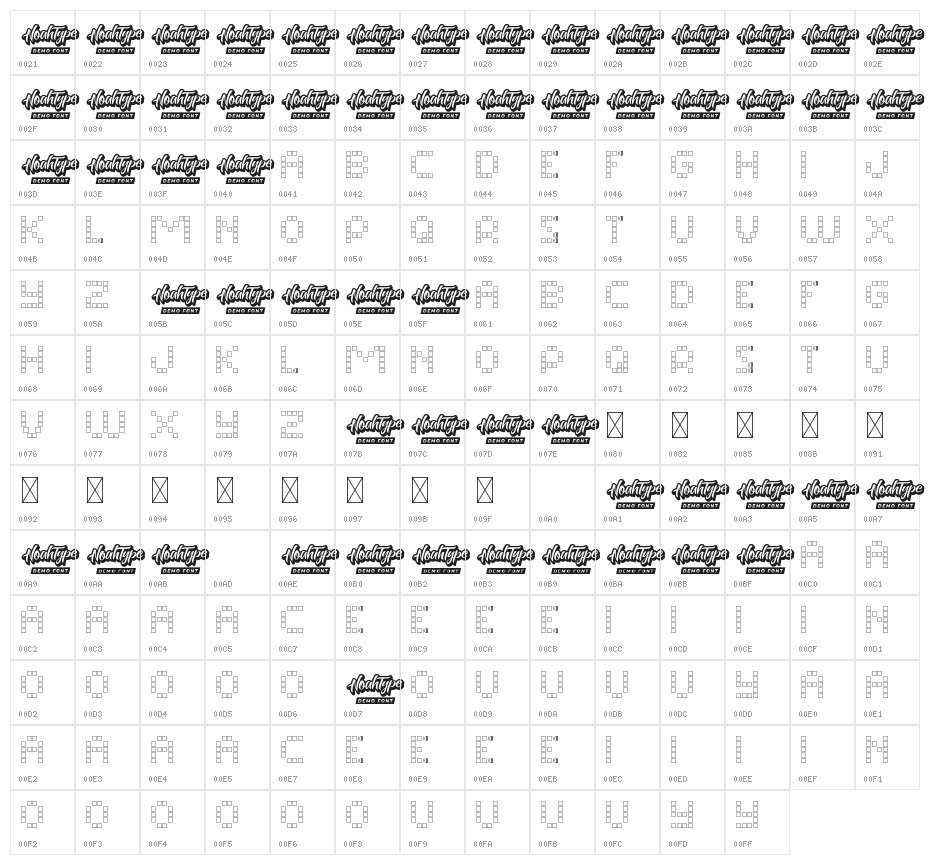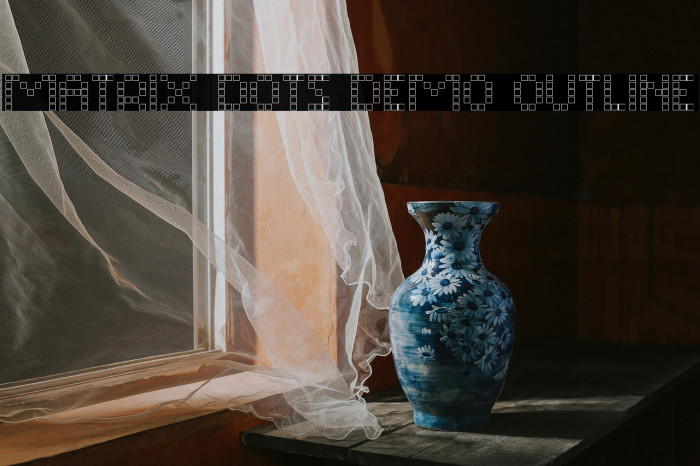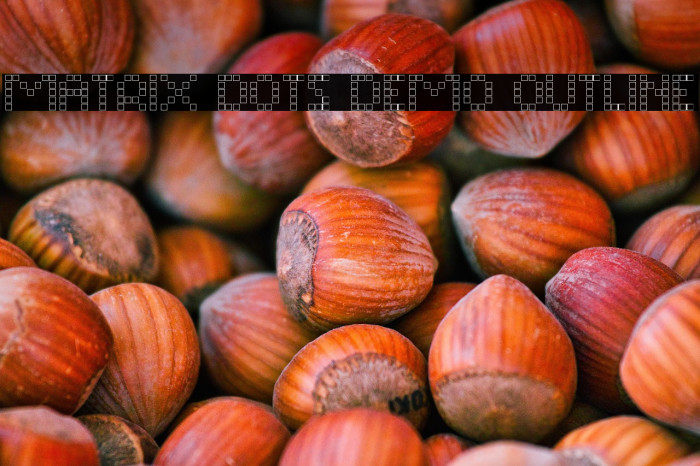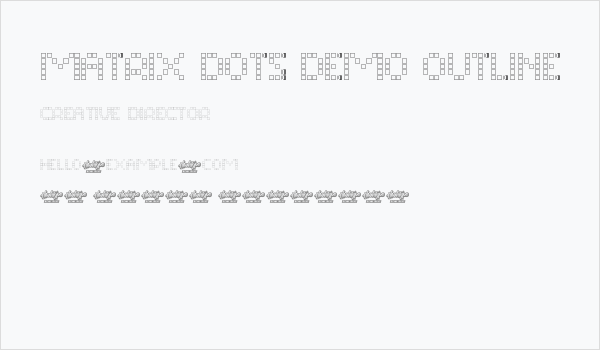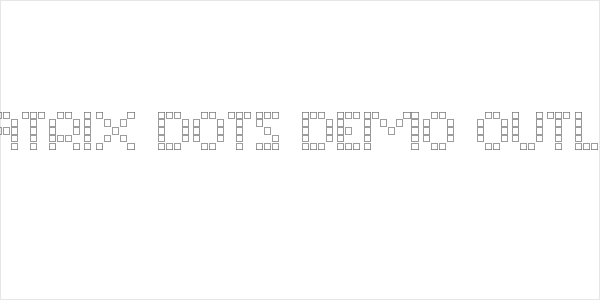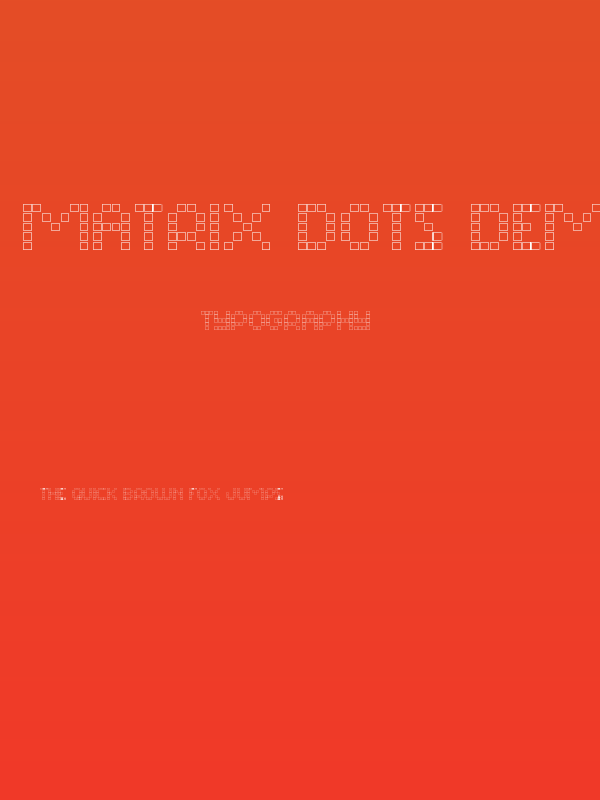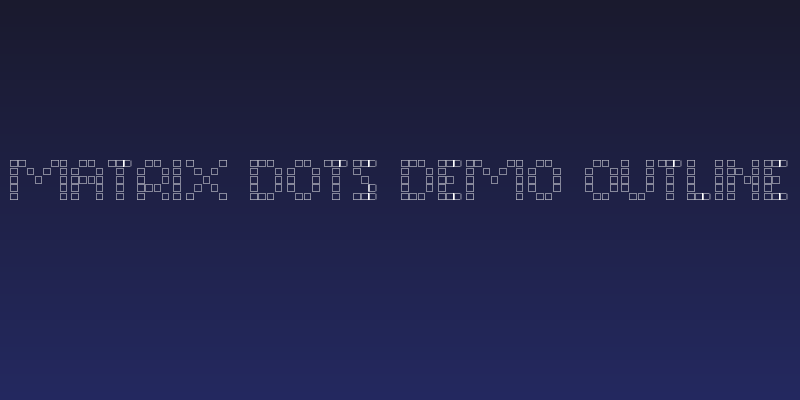
Matrix Dots Demo Outline Font
Matrix Dots Demo Outline Description
This font features a unique design where each character is composed of a series of outlined squares, creating a digital, pixelated effect reminiscent of early computer displays or LED screens. The geometric structure gives it a modern and technological feel, while the outline style adds a touch of lightness and openness. The characters are evenly spaced, maintaining a consistent grid-like appearance. This font is particularly eye-catching and suitable for projects that aim to convey a sense of innovation or digital aesthetics.
| Use Case | Logos, Headlines, Digital displays |
| Proposed Projects | Ideal for digital art, tech-themed posters, video game graphics, and futuristic branding. |